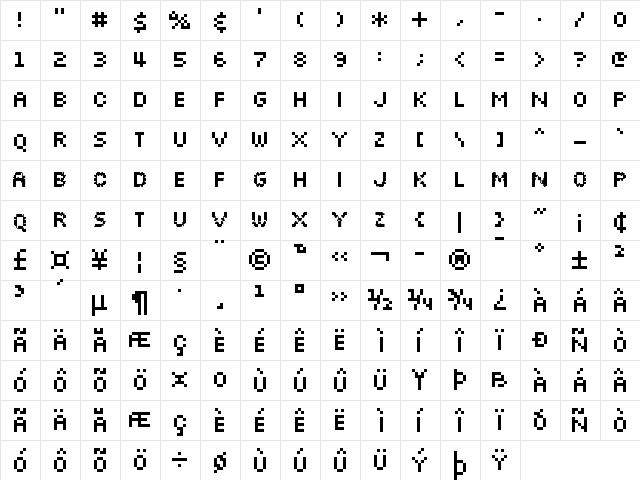
UF Silkscreen Remix E Regular Font Preview
UF Silkscreen Remix E Regular
UF Silkscreen Remix E Regular Font Details
| Foundry | Ultrafonts |
| Designer | Jason Kottke and TRUTH in Design. |
Design Context for UF Silkscreen Remix E Typeface
UF Silkscreen Remix E takes a measured approach to typography — its balanced proportions and neutral character make it a reliable workhorse for both digital and print work.